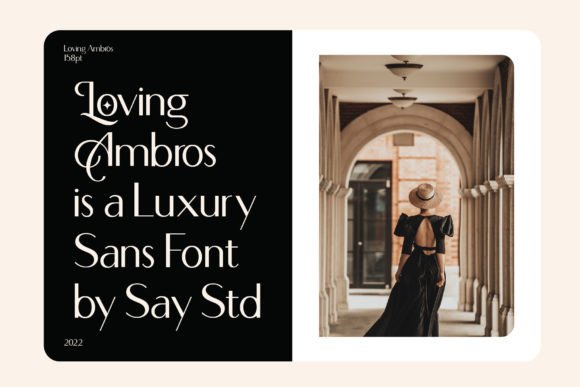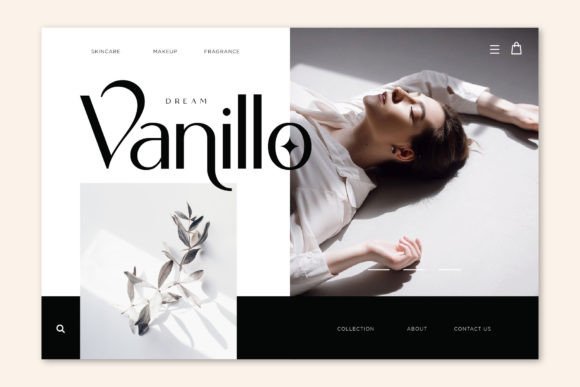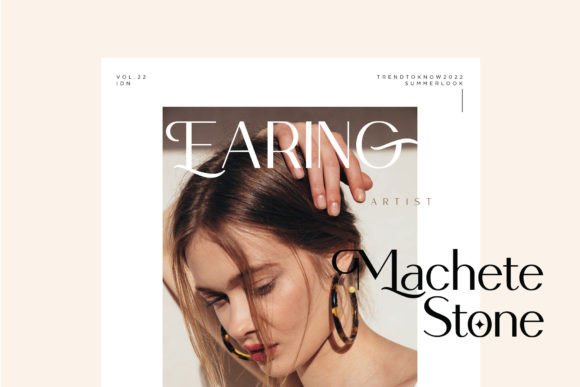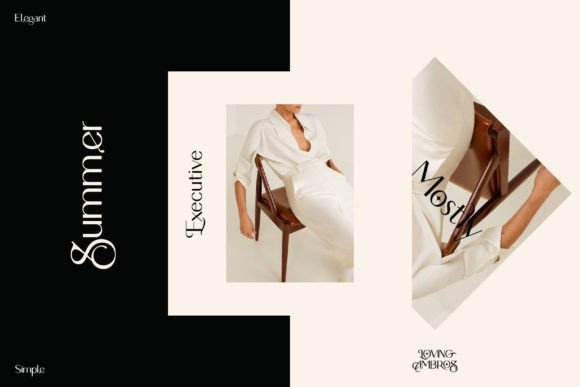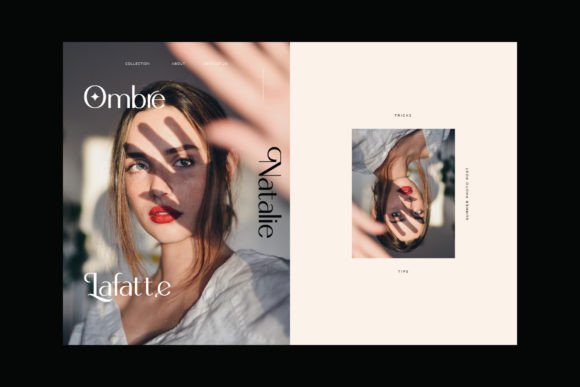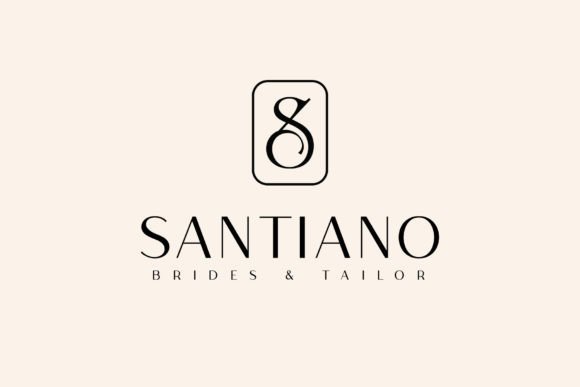
Introduction to Loving Ambros Font
Remember the thrill of stumbling upon the perfect font for a creative project? It’s like finding the missing piece of a puzzle that brings everything together. For designers, it’s a moment of pure joy. And for those who appreciate the finer things in life, the Loving Ambros Font is a true treasure. This luxurious serif font is designed to make a statement, whether it’s for a headline, title, or even a logo.
With its high-quality design and transparent background, the Loving Ambros Font is a valuable resource for designers looking to add a touch of elegance to their work. Whether you’re working on a modern or vintage design project, this font is sure to impress. And the best part? It’s available for free download, making it an accessible design resource for creatives of all levels.
Key Features of Loving Ambros Font
- Unique and elegant design perfect for creative projects and personal expressions.
- High-quality font available for free download, making it an excellent design resource for professionals and hobbyists alike.
- Features a large character set, including Latin, Cyrillic, and Greek alphabets, as well as punctuation and symbols.
- Designed with a high resolution (300 DPI) for optimal display on various devices and print materials.
- Perfect for use in various creative projects, including graphic design, digital art, and typography-based art.
Honest Review: Loving Ambros Font
I recently stumbled upon the Loving Ambros Font and was immediately drawn to its elegant and sophisticated design. As a designer, I appreciate high-quality fonts that can elevate any creative project. The Loving Ambros Font is a beautiful addition to any design resource.
Here are some of the things that work well with this font:
- ✨ The font’s clean and minimalist design makes it perfect for modern and sleek projects.
- ✨ The font’s transparency feature allows for seamless integration with transparent backgrounds, making it a great choice for creative projects.
- ⚠️ The font’s range of styles and weights is somewhat limited, which may not be ideal for projects that require a wide range of font variations.
- ⚠️ The font may not be suitable for use in very small sizes, as it can become difficult to read.
Overall, I’m impressed with the Loving Ambros Font and would definitely recommend it to designers looking for a high-quality, elegant font for their creative projects.
Loving Ambros Font is a versatile font that can be used for various design projects, including logos, business cards, and social media graphics. Its high-quality design makes it perfect for creative projects that require a unique and elegant touch. Use it to add a personal touch to your designs and make them stand out from the crowd.
Getting the Most Out of Loving Ambros Font
To get the most out of Loving Ambros Font, experiment with different font sizes, colors, and styles. Use it in combination with other design elements, such as images and graphics, to create a visually appealing design. Don’t be afraid to try out new and creative ideas to make your design project stand out.
Alternatives to Loving Ambros Font
Great Vibes Font is a beautiful, handwritten font perfect for creative projects that require a high-quality, elegant touch. It’s ideal for wedding invitations, quotes, and other designs where a unique, handwritten feel is desired.
Compared to Loving Ambros Font, Great Vibes Font has a more elegant and refined look, making it suitable for more formal designs. It also has a more transparent background, allowing for better contrast and visibility in creative projects.
Q: What is the recommended resolution for using the Loving Ambros Font?
For optimal results, we recommend using the Loving Ambros Font at a resolution of 300 DPI or higher. This ensures that the font appears high quality and clear, even when scaled up or down. This is particularly important for designers working on high-resolution prints or digital graphics that require a crisp and clean appearance.